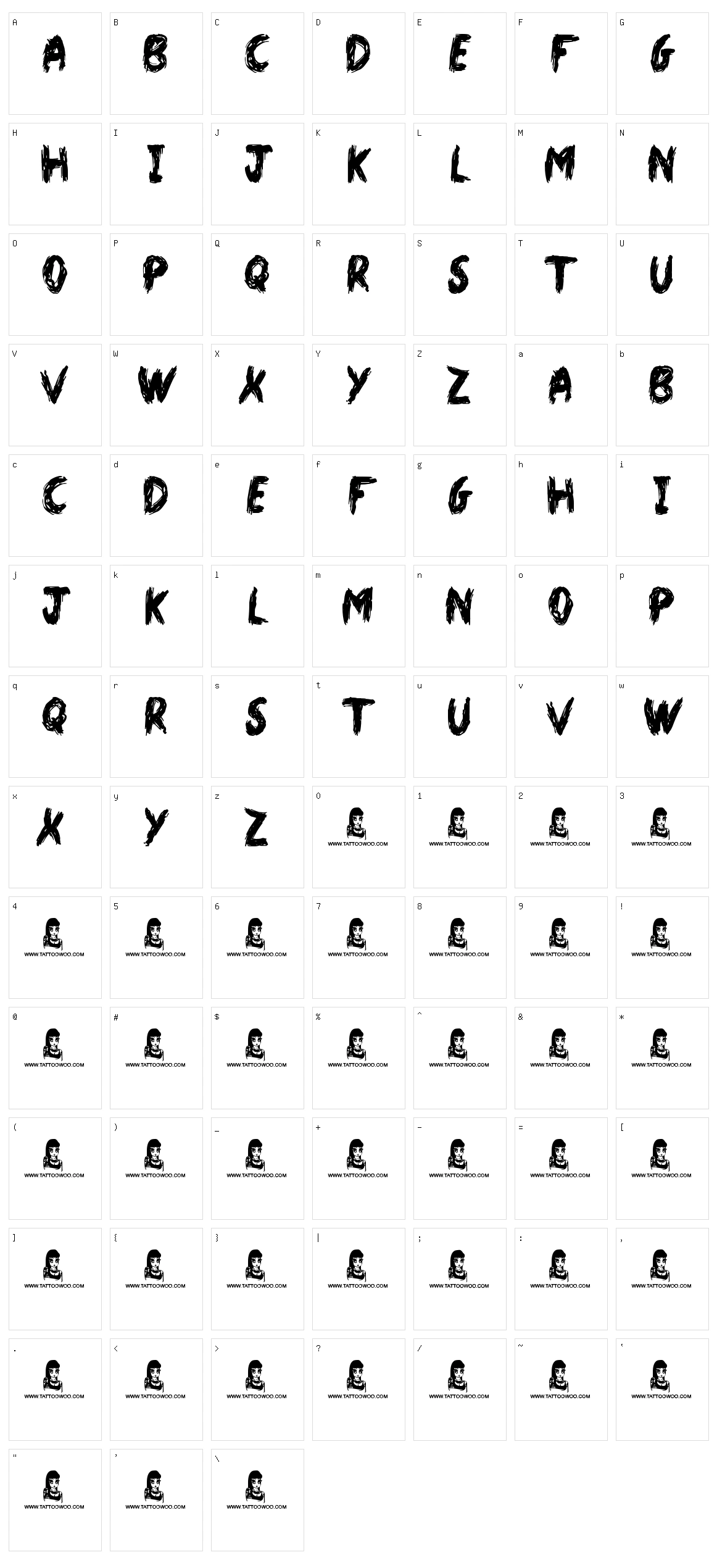
The free font Dark World is carefully designed by JSH creates, showcasing a thoughtful balance of creativity and usability and falls under the Horror font style. When you download the ZIP file, it contains only 36.53 KB of font files, making it lightweight and quick to download. Please review the license details below to understand permitted usage and distribution rights. If license information is not available, we recommend using this font for personal projects only or contacting the author directly for commercial usage permissions.